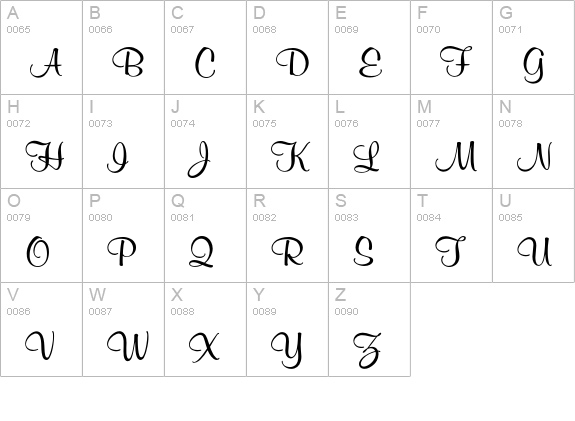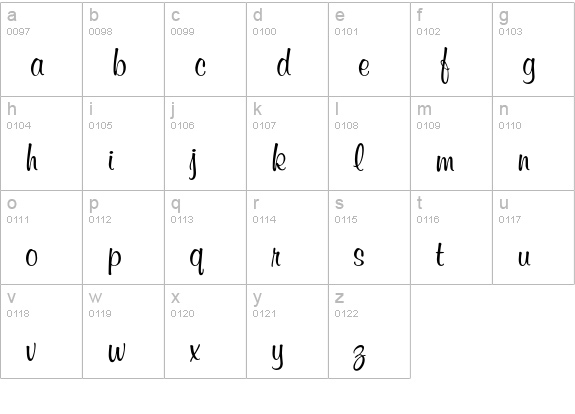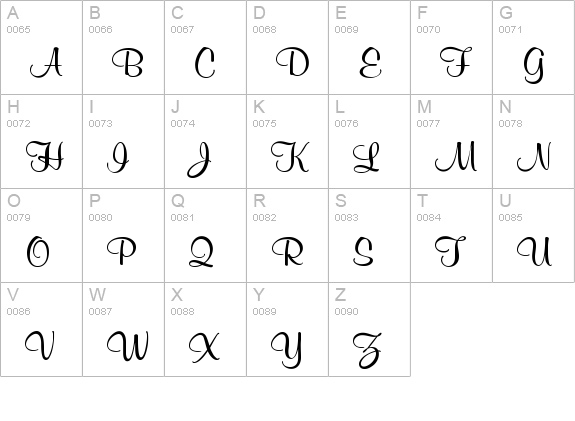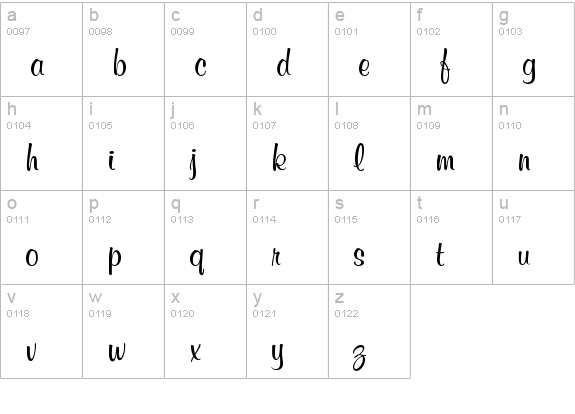
Murray Hill Bold is a strong, high-contrast variant in the Murray typeface family \xE2\x80\x94 well suited to headlines, attention-grabbing titles, and strong calls-to-action.
Murray Hill Bold font is a timeless and sophisticated typeface that exudes elegance and charm. With its bold and commanding presence, this font is perfect for creating eye-catching headlines, logos, and branding materials. The clean lines and classic design of Murray Hill Bold make it versatile and suitable for a wide range of design projects. The best part? Murray Hill Bold font is available for free download at FontsMarket.com! This means you can easily access and use this stunning font without any cost. Whether you're a professional designer looking to elevate your projects or a hobbyist seeking to add a touch of class to your creations, Murray Hill Bold font is the perfect choice. Download it today and unleash your creativity with this exquisite typeface.